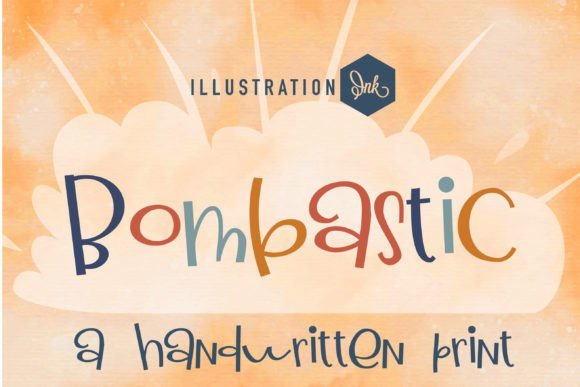
The Perfect Combination of Whimsy and Style: Introducing Bombastic Font
Have you ever been brainstorming a creative project and suddenly the perfect idea hits you like a ton of bricks? That’s exactly what happened when designers stumbled upon the whimsical Bombastic Font, a hand-crafted sans serif that’s equal parts playful and sophisticated. This unique font boasts a charming mix of toggle and mis-sizing, making it the perfect addition to any design project.
Whether you’re designing an invitation, greeting card, or simply want to add some personality to your social media posts, Bombastic Font is the perfect tool for the job. Its bold version adds an extra layer of depth and visual interest, making it a valuable asset for designers looking to take their work to the next level.
Bombastic Font Key Features
- Font Family: Bombastic Font comes in a single font family, ideal for creating a cohesive and powerful visual identity.
- Unique Characteristics: Features an exaggerated, over-the-top design aesthetic, making it perfect for creating eye-catching headlines and titles.
- Kerning and Glyphs: Includes advanced kerning and a comprehensive set of glyphs to ensure smooth text rendering and readability.
Bombastic Font Review
First off, I love the bold, eye-catching vibe of the Bombastic Font ✨. It’s perfect for making a statement and grabbing attention. The font’s unique, energetic design is sure to elevate any project it’s used in. Additionally, the font is highly customizable ✨, allowing designers to adjust the style to fit their specific needs.
However, I do have a few concerns ⚠️. Firstly, the font can be a bit overwhelming if used in large blocks of text. It’s better suited for headings, titles, and short paragraphs. Secondly, the font’s complexity can make it difficult to pair with other fonts, which may limit its versatility.
Overall, the Bombastic Font is a great choice for designers who want to add some excitement to their projects. While it has its limitations, the font’s unique design and high customizability make it a valuable addition to any design toolkit.
Pros:
- Eye-catching, bold design
- Perfect for headings and titles
Cons:
- Can be overwhelming in large blocks of text
- Difficult to pair with other fonts
For a dramatic look, use the font in large headings or titles. You can also combine it with other fonts to create a visually appealing contrast.
For a more stylized look, experiment with different font sizes and colors to create a dramatic effect.
For a bold presentation, use the font in headings and titles, and combine it with other fonts to create a visually appealing contrast.
Use Bombastic Font to add a touch of drama and flair to your designs.
It’s particularly effective in titles, headings, and emphasis text.
Yes, Bombastic Font supports font substitution and ligature features. It includes a range of ligatures and contextual alternates that can be activated through font substitution. This allows for more expressive and nuanced typography in your designs. However, please note that font substitution and ligature features may require specific font rendering engines and software support.